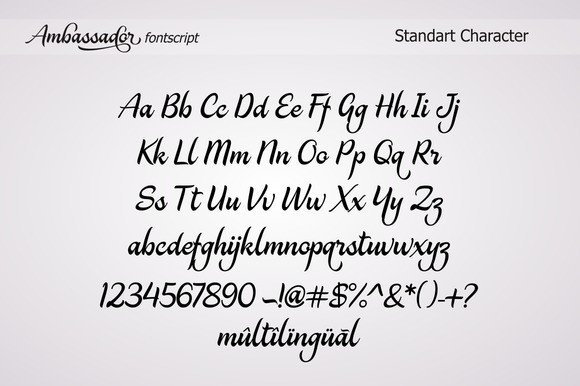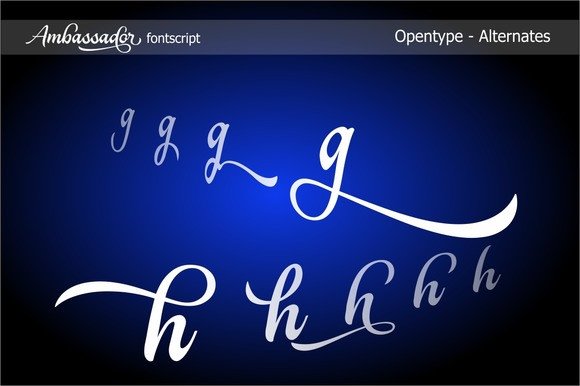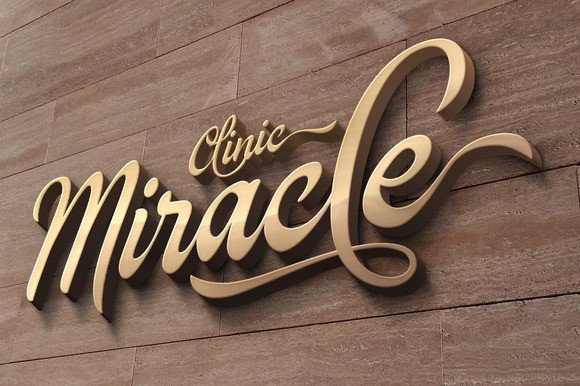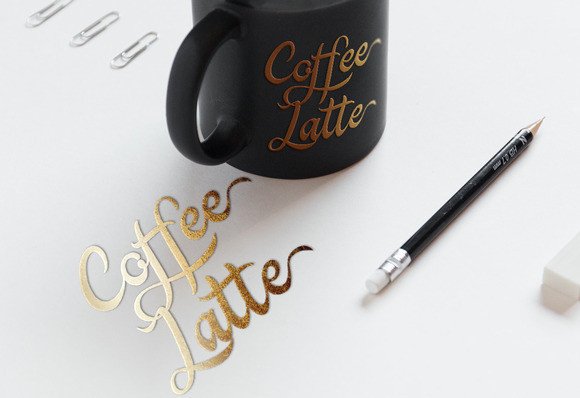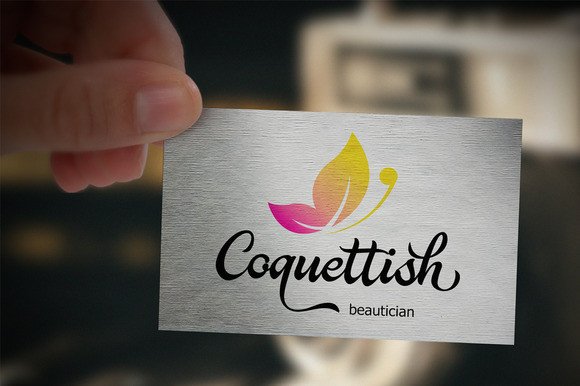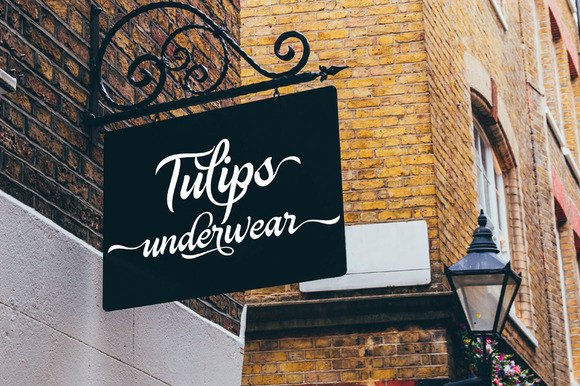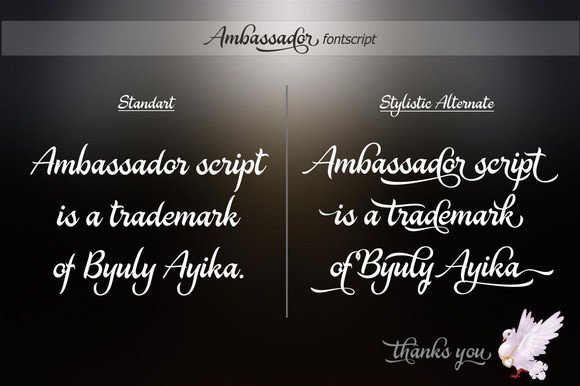
Ambassador Font
About Ambassador Font
Ambassador is a handwritten font with over 400 unique glyphs.
Because of this huge amount of characters you can use this font over and over again to come up with something truly unique.